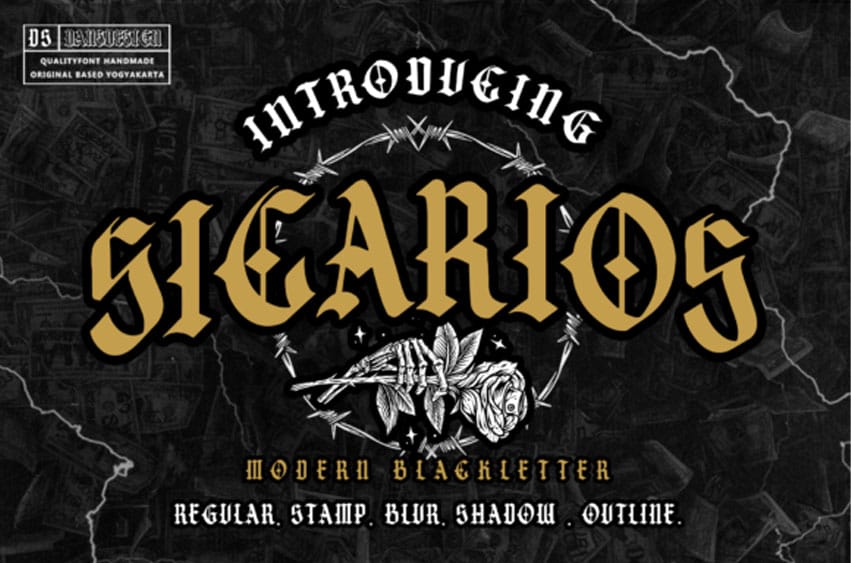
Sicarios Font
Sicarios Font is an authentic and assertive blackletter font.
This font is ideal for writing web designs, business cards, or pretty much anything else that requires a bold, distinct touch.